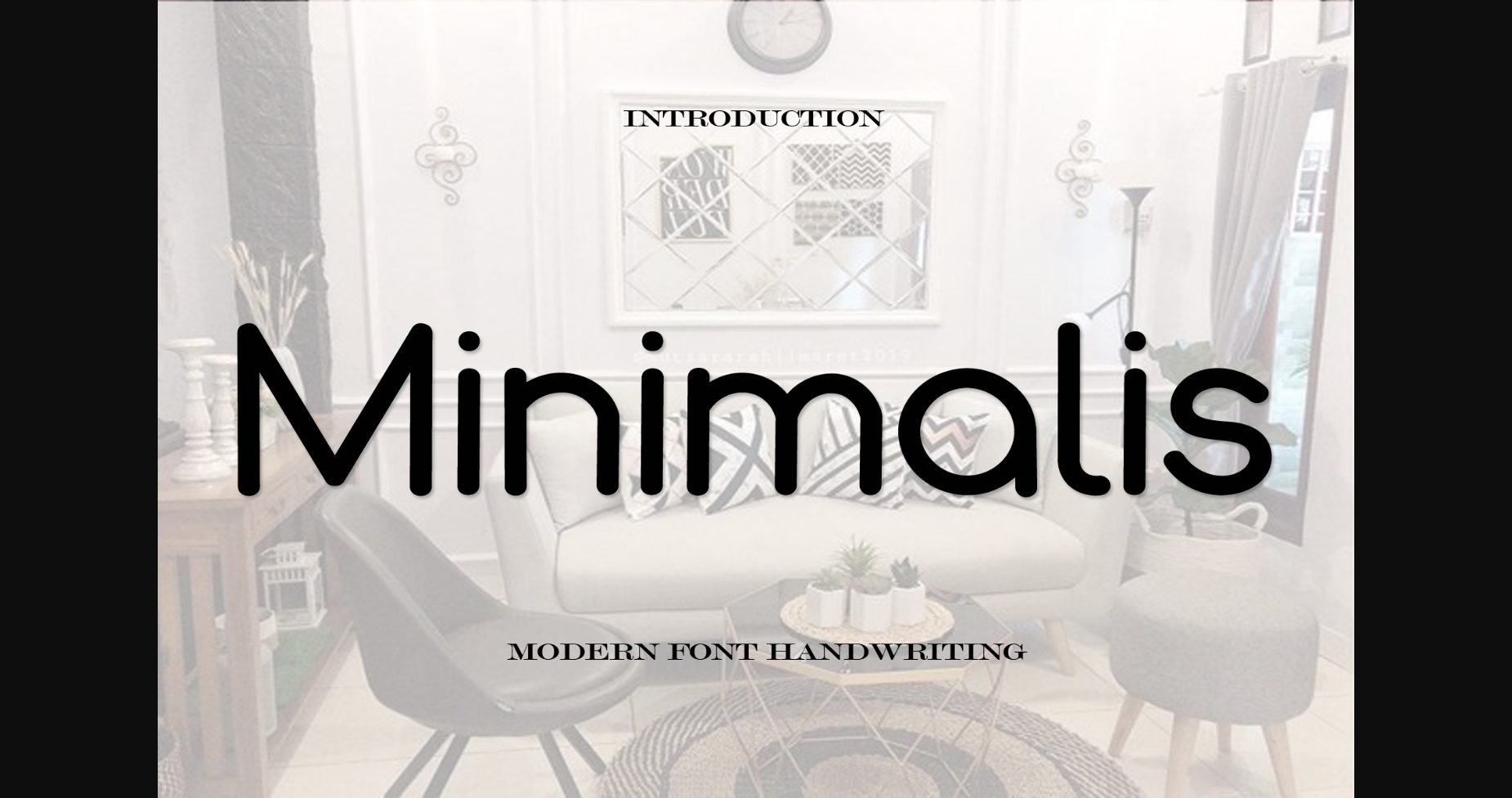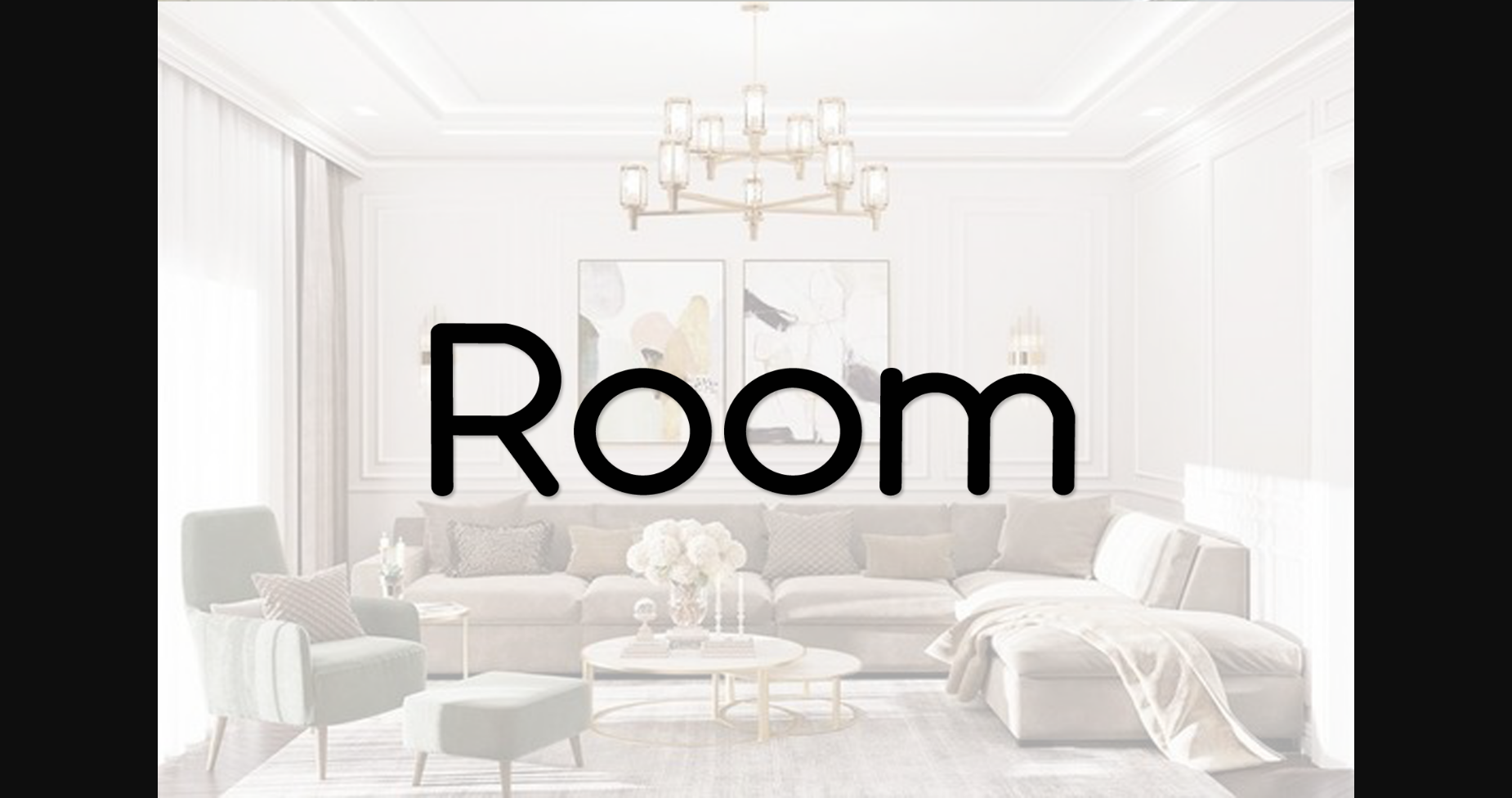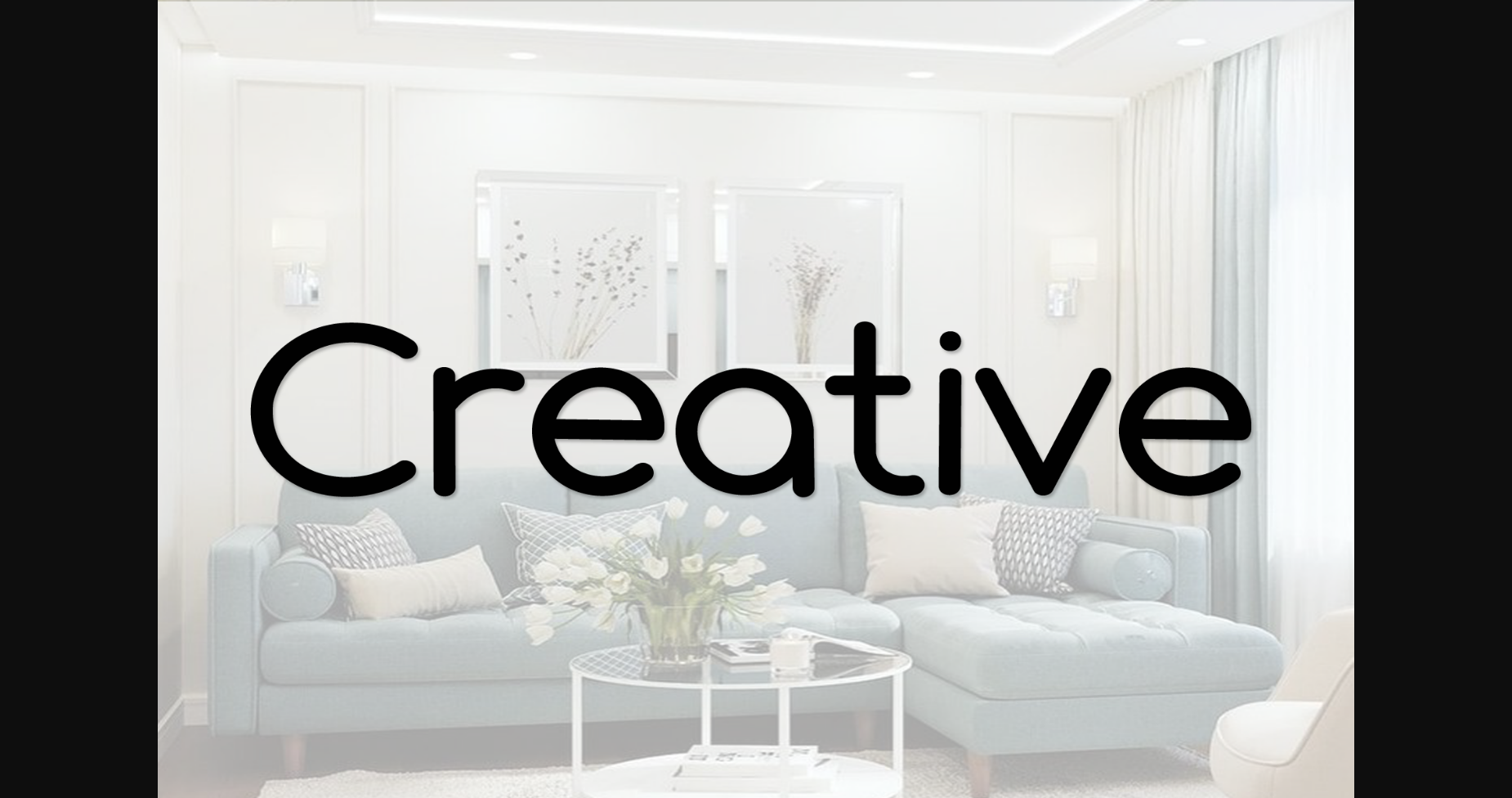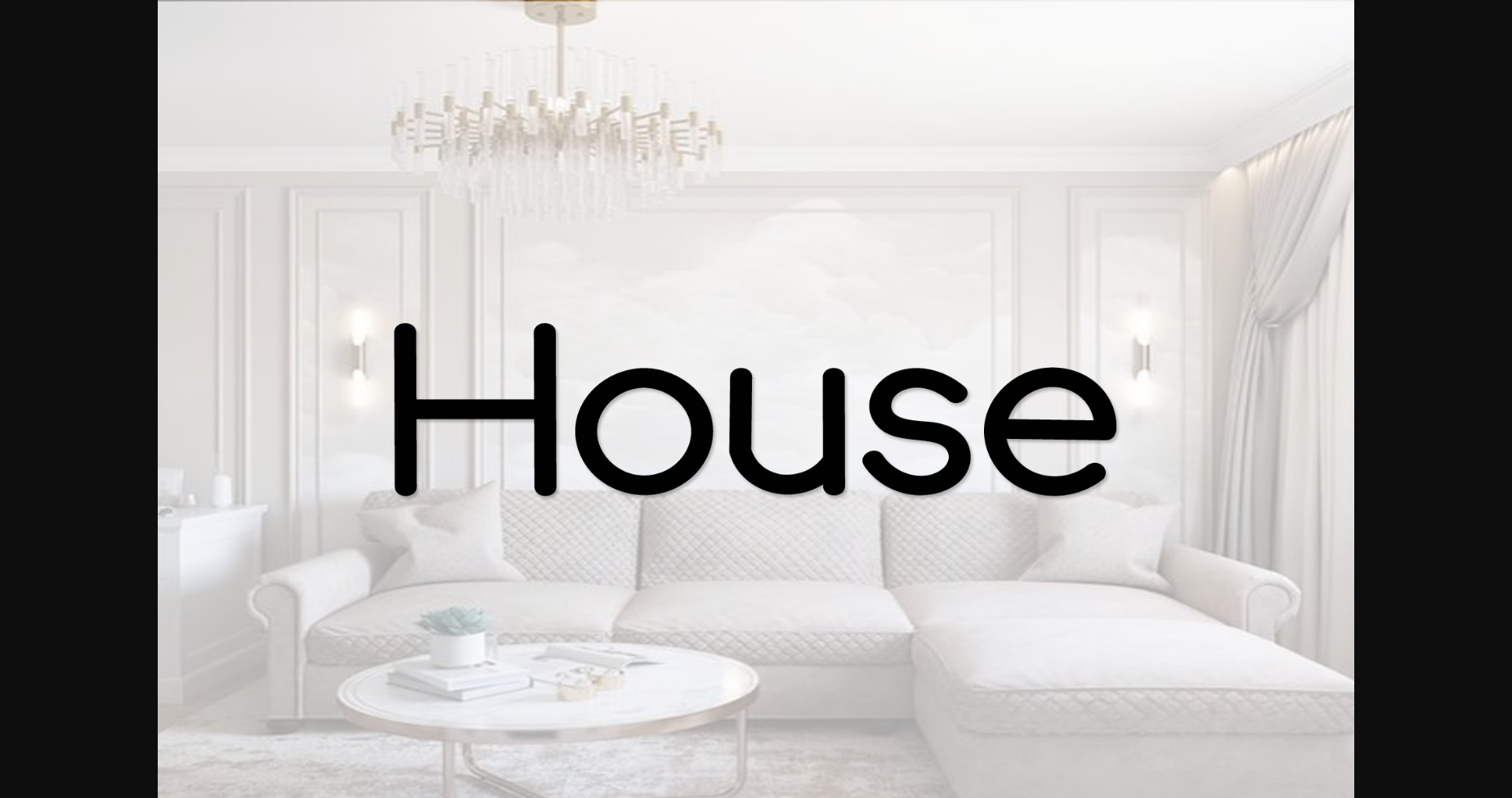
Minimalis Font
About Minimalis Font
Minimalis is a classic sans serif font. It is suitable for logotype, headline font, corporate identity, brand identity, apparel industry, poster, music, movie, game, magazine, book, comic, cartoon, YouTube, Instagram, website, or any of your creative design projects.